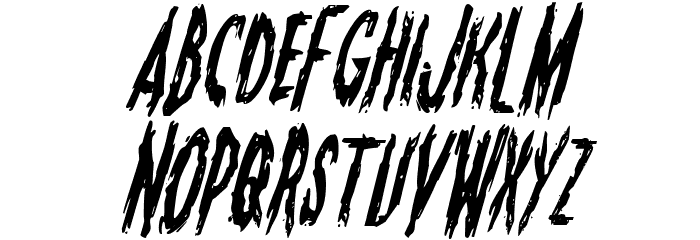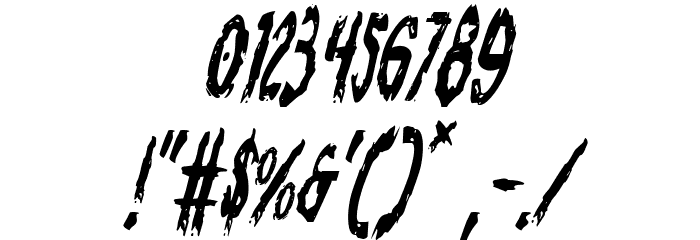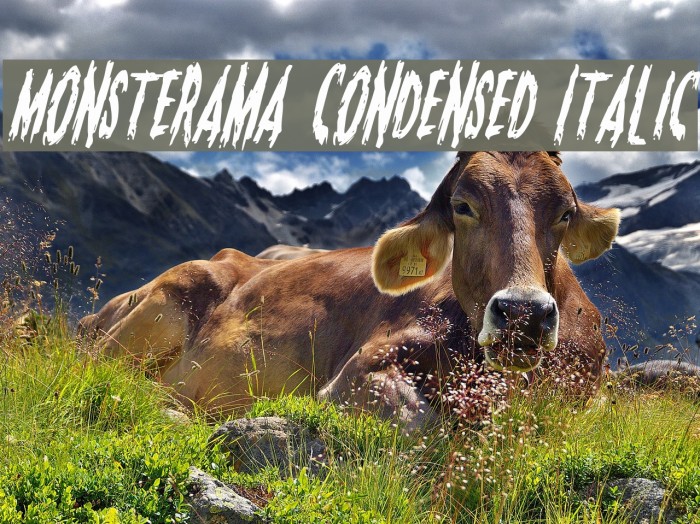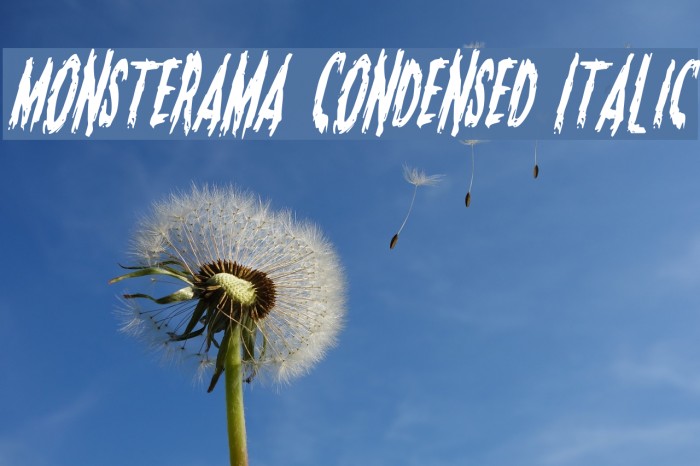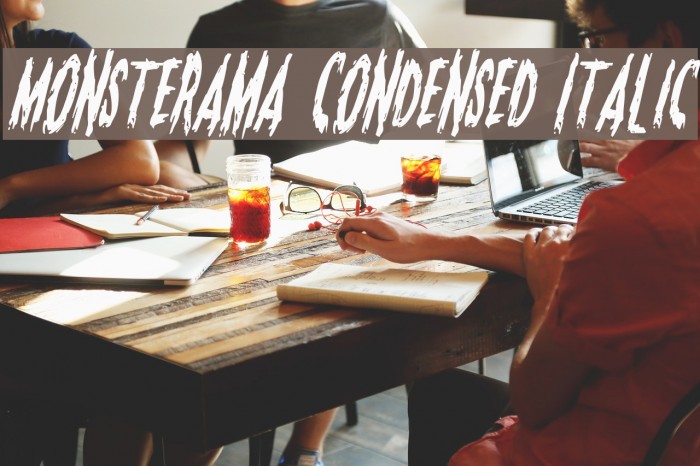
Monsterama Condensed Italic Font
This font features a bold and dynamic style with a condensed and italicized form. The characters are designed with a jagged, distressed appearance, giving them a rough and edgy look. The strokes are uneven, creating a sense of movement and energy. This font is highly decorative, making it ideal for projects that require a dramatic and eye-catching typeface. The uppercase and lowercase letters maintain a consistent style, with numbers and special characters following the same aesthetic. The overall design is reminiscent of horror or thriller themes, perfect for creating a sense of urgency or excitement.
A bold, condensed, and italicized font with a jagged, distressed style.
- Proposed Projects: Ideal for horror movie posters, Halloween event flyers, edgy branding, and video game titles.